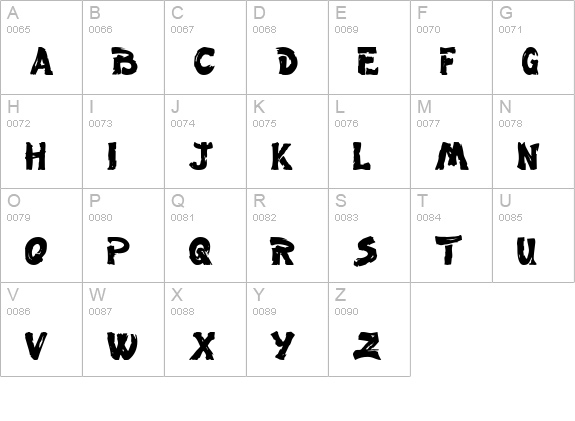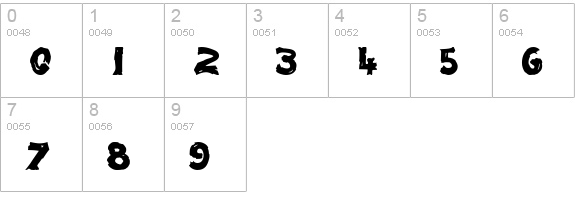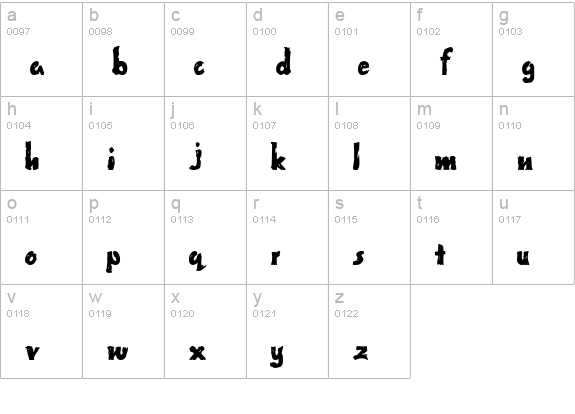
Paint Normal is the standard, neutral variant in the Paint typeface family \xE2\x80\x94 well suited to general body text, paragraphs, and standard typographic work.
Introducing Paint Normal font, a stunning typeface that effortlessly adds a touch of artistic flair to any design project. With its bold strokes, this font captures the essence of hand-painted brushwork, bringing a unique and captivating element to your creative endeavors. Paint Normal font is not only visually striking but also versatile, making it suitable for a wide range of applications. Whether you're designing a logo, crafting a headline, or creating eye-catching graphics, this font is sure to make a lasting impression. One of the best aspects of Paint Normal font is that it is freely available to download at FontsMarket.com. Yes, you read that right - this incredible font is absolutely free, allowing you to enhance your designs without breaking the bank. With just a few clicks, you can have this beautiful font at your fingertips, ready to unleash your creativity. The attention to detail in Paint Normal font is impeccable. Each character is carefully crafted to maintain the organic, imperfect look of hand-painted brush strokes. The result is a font that exudes authenticity and adds a touch of artistic elegance to your designs. With its wide range of characters, including uppercase and lowercase letters, numerals, punctuation marks, and special symbols, Paint Normal font offers endless possibilities for creating visually stunning and engaging designs. Its legibility and distinct style make it suitable for various design projects, from branding to packaging, posters to invitations. So why wait? Download Paint Normal font today from FontsMarket.com and unlock the power of this extraordinary typeface. Let your creativity soar as you incorporate the beauty of hand-painted brushwork into your designs. Enjoy the freedom of expression that this font provides, and watch as your designs come to life with a captivating, artistic touch.